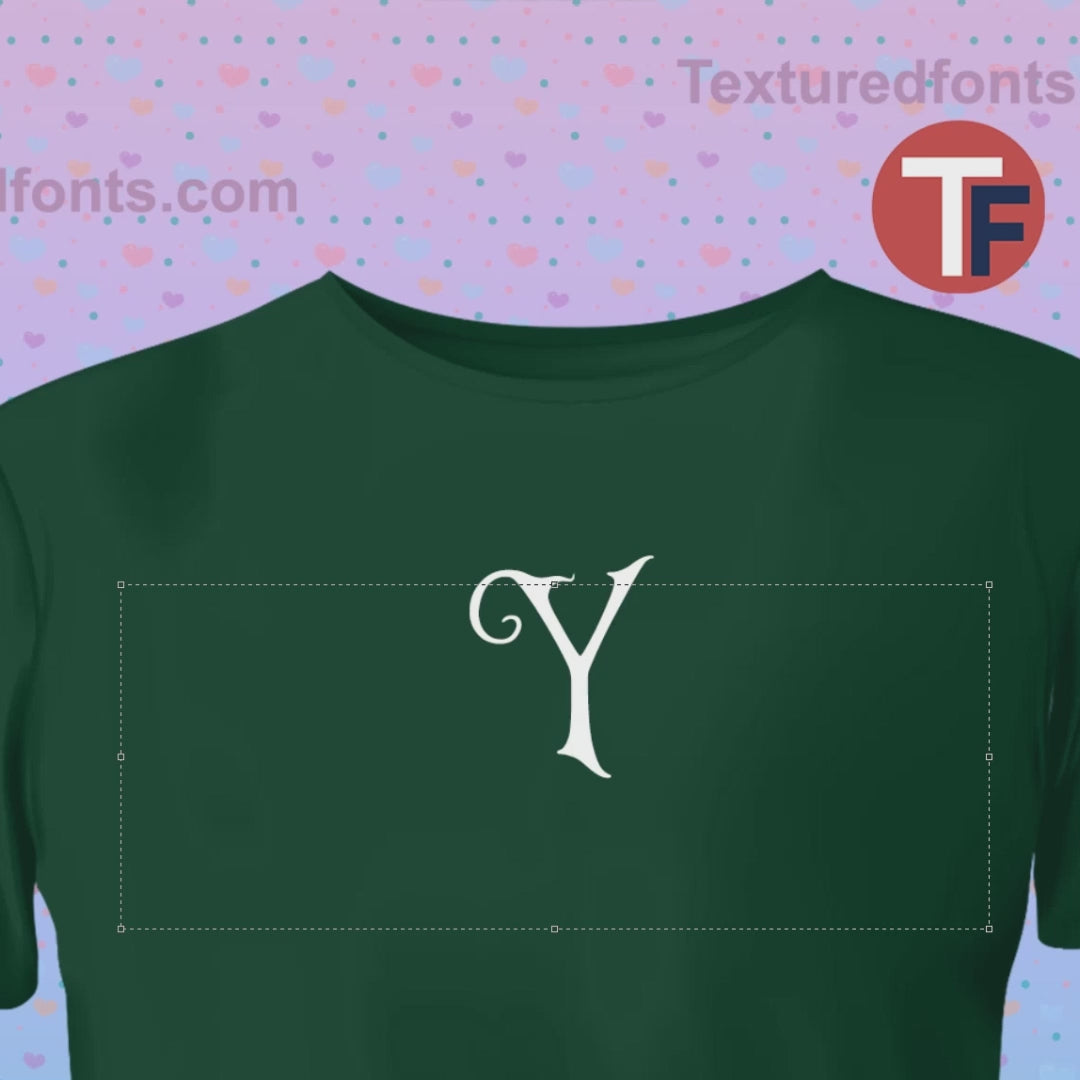
Fairy Wonderland Font
Sprinkle Some Magic with the Fairy Wonderland Font
Step into the enchanting world of pixie dust and fairy adventures with our Fairy Wonderland-inspired font. Perfect for fans of the beloved fairy, event planners, and designers looking to add a touch of whimsy and magic to their projects, this font captures the lighthearted and ethereal essence of fairy tales. Whether you're creating event invitations, designing themed merchandise, or crafting digital content, our Fairy Wonderland font ensures your projects sparkle with the charm and wonder of magical realms.
Our Fairy Wonderland-inspired font features delicate, flowing lines and whimsical details that reflect the fairy’s playful and enchanting nature. This versatile font is ideal for a variety of applications:
- Event Invitations: Perfect for creating magical invites for children’s parties, fairy-themed events, or baby showers.
- Merchandise Design: Ideal for designing t-shirts, posters, and accessories that capture the spirit of Fairy Wonderland.
- Digital Media: Enhance websites, blogs, and social media content with whimsical headers and graphics.
- Educational Materials: Use in presentations, worksheets, and educational content focused on fairy tales, fantasy, or storytelling.
- Personal Projects: Add a touch of magic to scrapbooking, DIY crafts, or home decor inspired by fairy adventures.
Our Fairy Wonderland font not only pays tribute to the beloved fairy but also empowers you to infuse your designs with her whimsical and enchanting spirit. Whether you’re crafting promotional materials, designing unique merchandise, or adding a magical touch to personal projects, this font allows you to communicate with the playful and lighthearted essence of fairy tales. Ready to make your creative projects take flight? This font is your key to adding a sprinkle of fairy dust to every design.